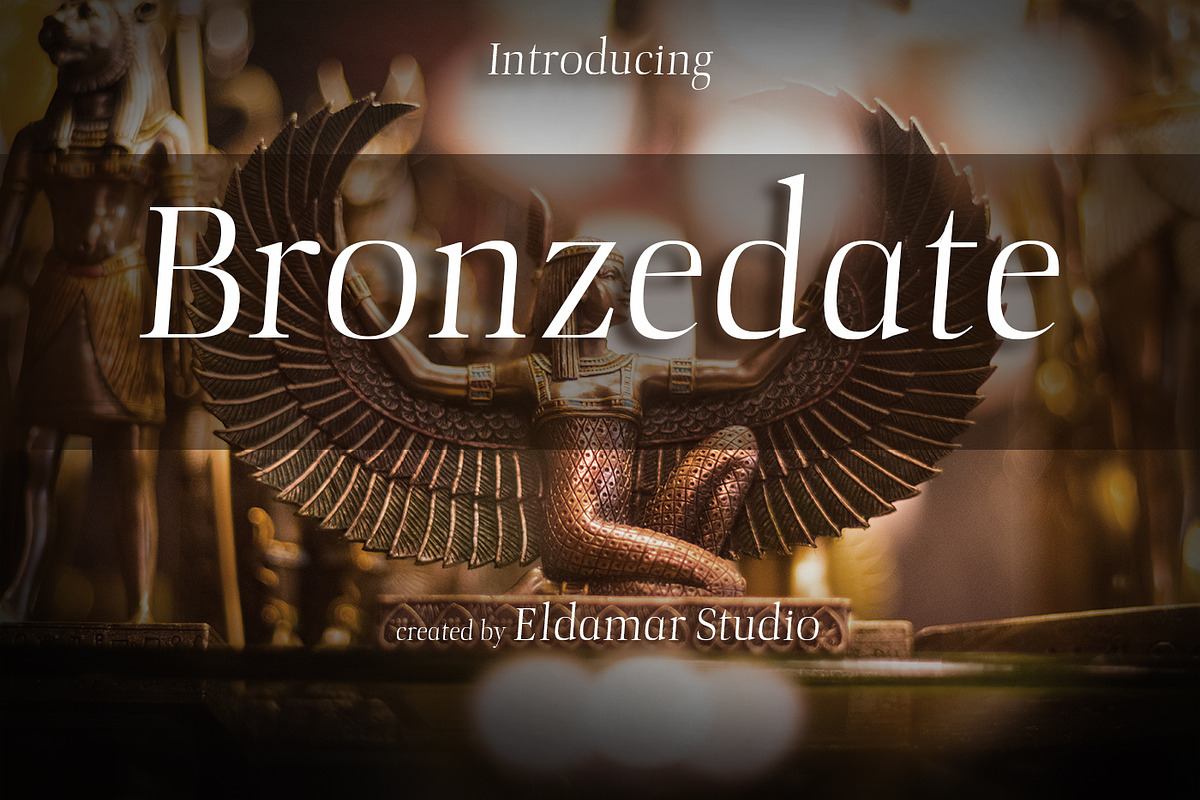
Bronzegate Font is a beautifully crafted typeface that exudes elegance and sophistication. Perfect for branding, invitations, and creative projects, this font offers a timeless appeal with its unique design. Download Bronzegate Font Free Download today and enhance your projects with a touch of luxury!